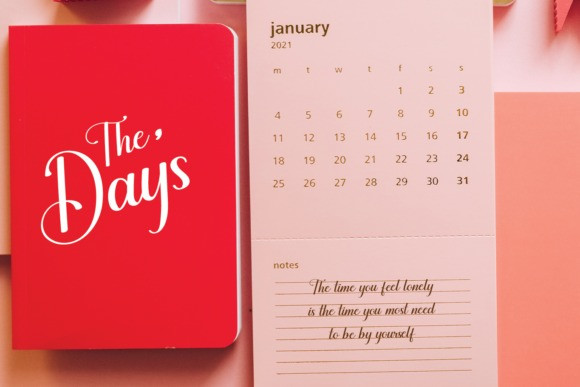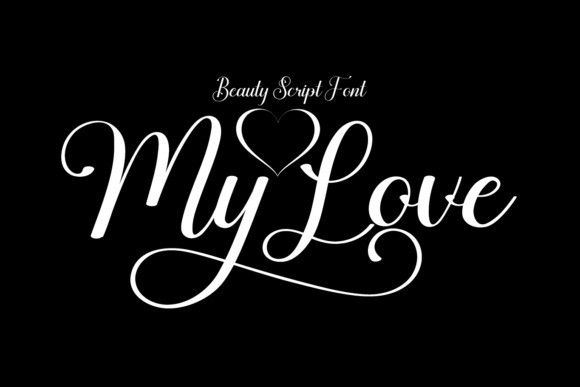
My Love Font
My Love Font is an exquisite handwritten font, masterfully designed to become a true favorite. It maintains its classy calligraphic influences while feeling contemporary and fresh. Fall in love with it and bring your projects to the highest levels!